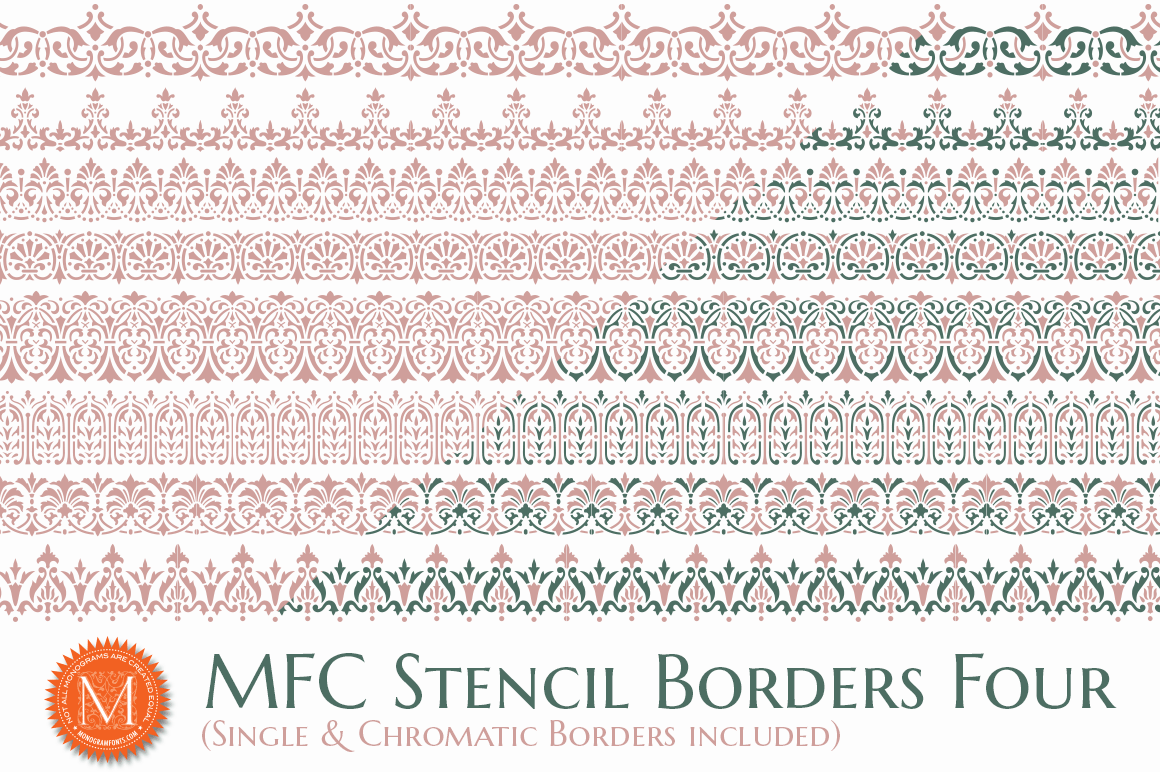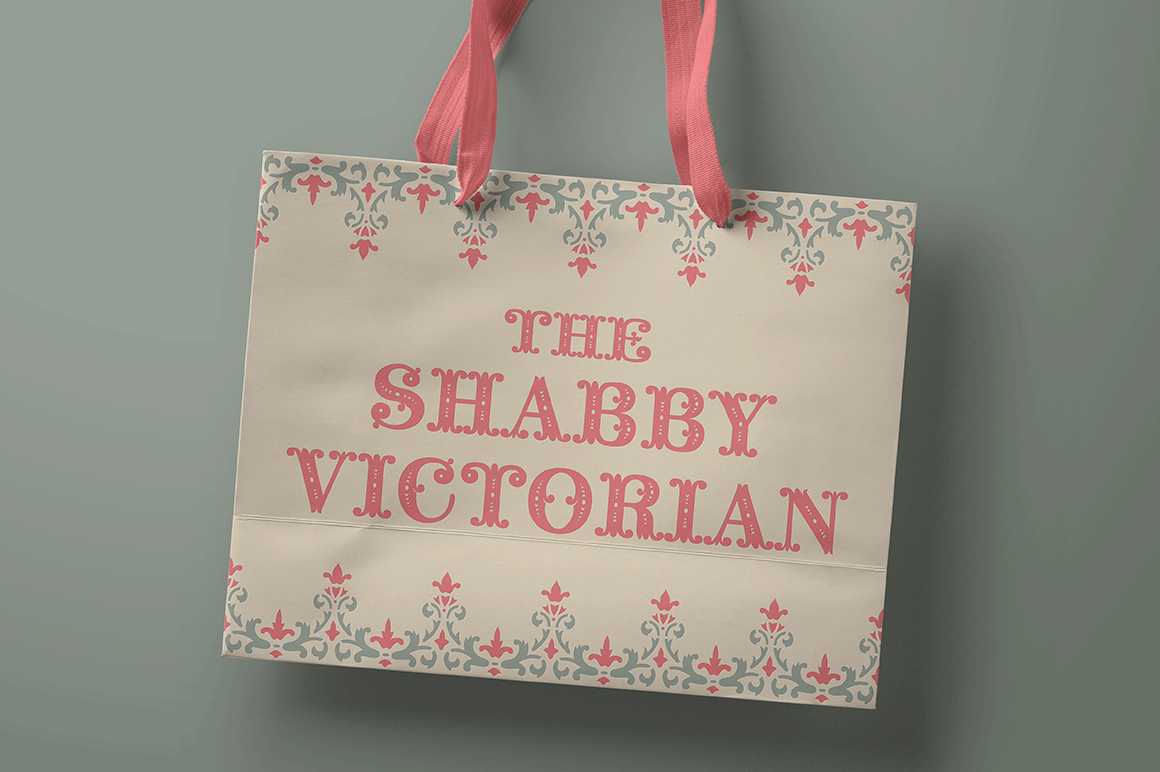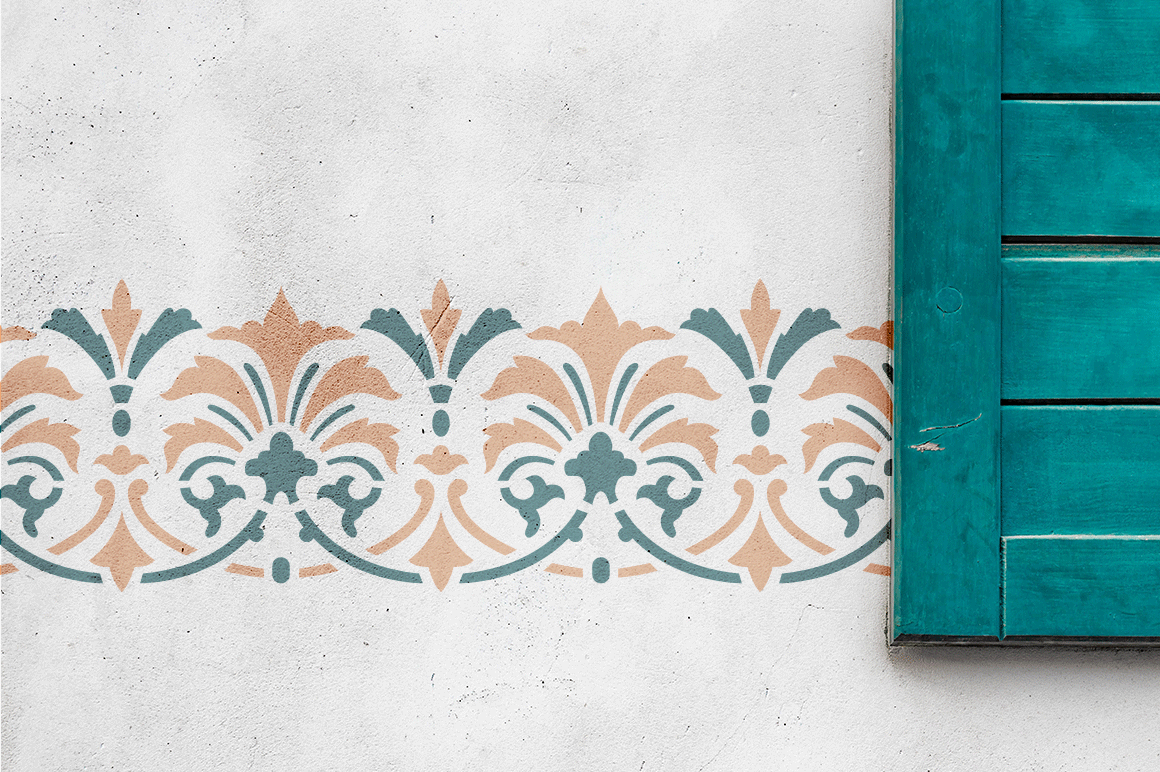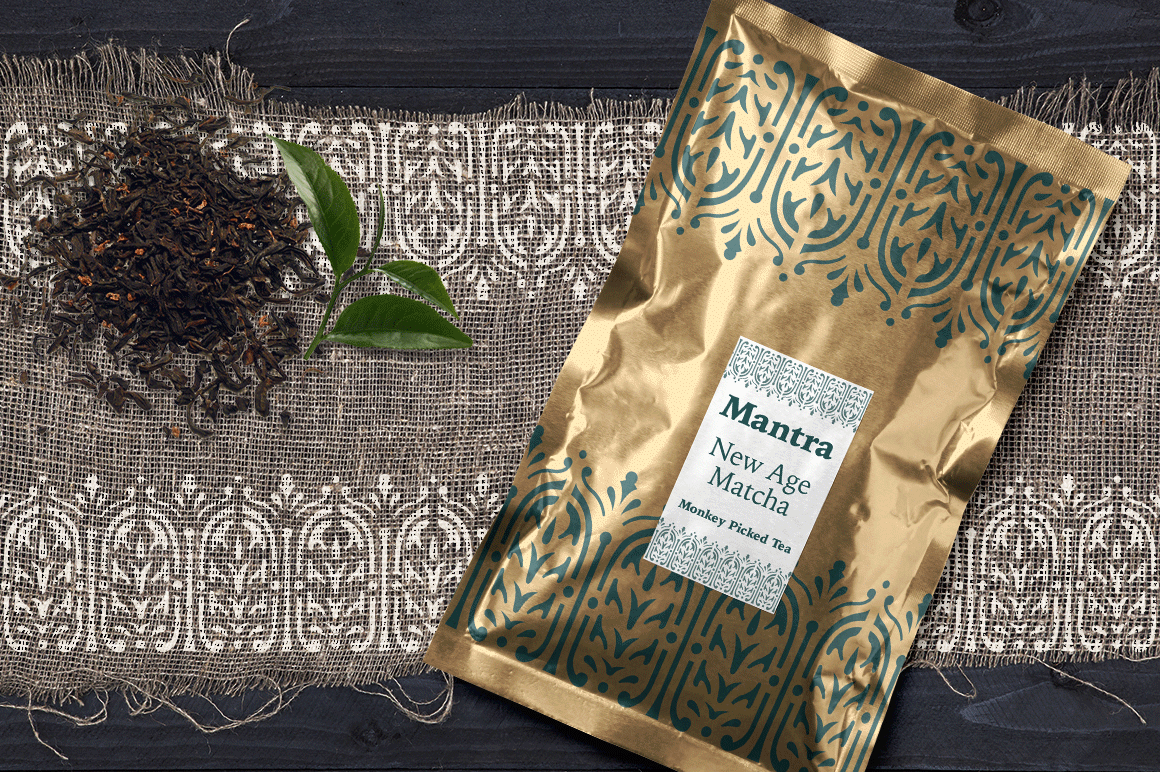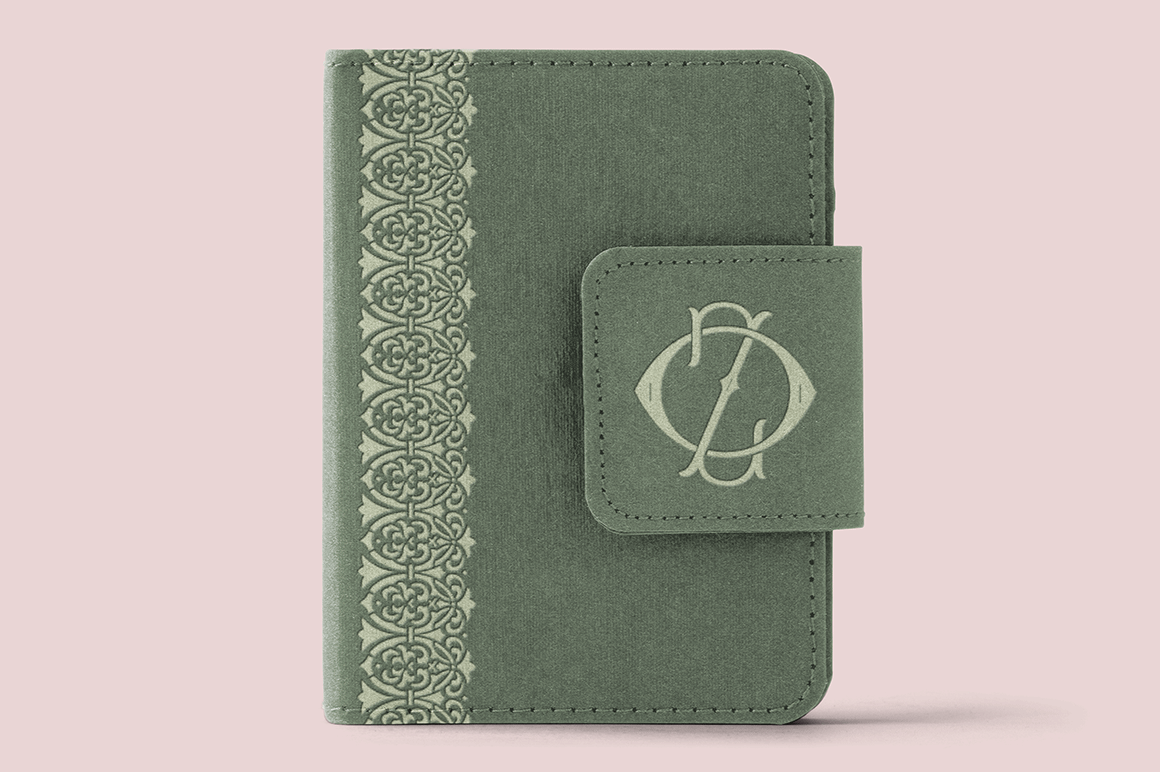
MFC Stencil Borders Four
The inspiration source for MFC Stencil Borders Four are stencil patterns from the circa early 1900's Blue Label Brand Stencil booklet. The original designs were produced as single color stencils designs, mostly as trims (without corners to complete them as borders). We've not only added corners to make them fully functional borders, but we've also created two-color layerable chromatic styles, for more fun and diversity. For the first time, this decorative border collection is available digitally.
Make certain that the point size of the font is the same as the leading being applied to the font so the borders will meet up properly. While we've adjusted this within the font, your program may override these settings. For instance a 12 point font should have 12 points of leading. A PDF guidebook for MFC Stencil Borders Four is included in the font package.